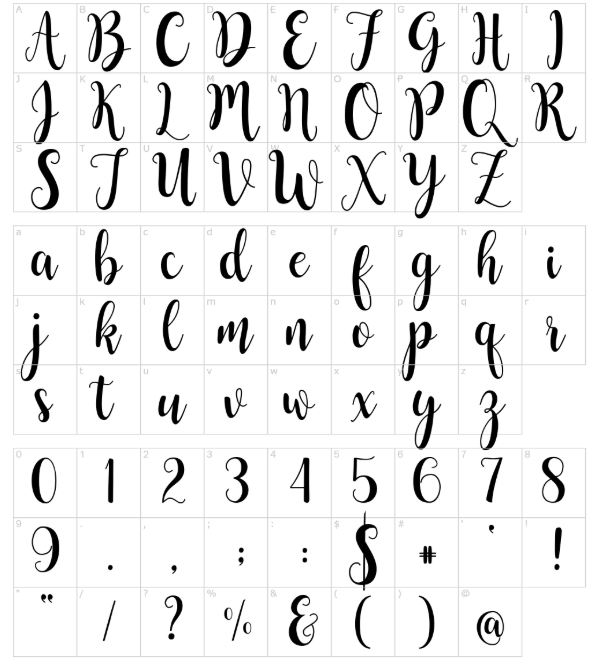
The Buttercup Font is recognized for its elegant and script-style design that brings added creativity and artistry to any project. It is widely used in branding, invitations, and digital design because its stylish and flowing typography makes it appealing.
Buttercup Font is undoubtedly one of the most sophisticated and charming typefaces, giving designers a reason to use it in various creative projects.
What is Buttercup Font?
The Buttercup Font is a beautiful cursive typeface that attempts to imitate the beauty of human handwriting. This font resembles sophisticated calligraphy, which has assumed a natural and flowing style.
Even though it is a custom-designed font, there are many alternatives for comparably styled script fonts for designers to select from. Popular substitutions include Great Vibes and Allura, which have comparably refined attributes for creative designs.
Key Features of Buttercup Font
The Buttercup Font offers an elegant script style with curves that flow naturally. It’s ideal for everything from logos and invitations to social media graphics and print designs, as it can easily be mistaken for authentic handwriting.
- Elegant & Stylish: Suitable for invitations, branding, as well as embellishments and decorations.
- Smooth and Flowing: Has a creative touch that makes text look handwritten.
- Highly Versatile: Can be used in logos, social media images, and artwork.
- Readable & Professional: Balances creative flair with clear legibility.
Applications of Buttercup Font
Buttercup Font is ideal for branding, invitations, social media, print materials, and custom merchandise.
- Branding & Logos: Perfect for creating distinctive and elegant brand identities.
- Invitations & Greeting Cards: Ideal for designing wedding invitations, thank-you cards, and personal messages.
- Social Media Graphics: Enhances the artistic appeal of social media posts and stories.
- Print Materials: Works well for brochures, posters, and magazine covers.
- Merchandise & Apparel: Great for custom T-shirts, mugs, and accessories.
Similar Fonts to Buttercup Font
Conclusion: Buttercup Font
The Buttercup Font is a delightful blend of style and versatility, making it one of the most preferred fonts by designers for a wide range of creative projects. And Buttercup Font… Well, it’s lightning fast, effortlessly sets the tone for modernism and sophistication, and makes even the simplest logo or invitation beautiful and elegant.